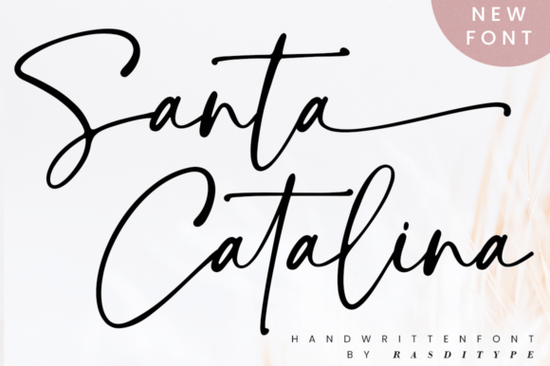
Are you searching for a digital asset that adds warmth without sacrificing readability? The Santa Catalina Font stands out among hundreds of options because it balances character with usability. Many designers struggle to find scripts that feel organic enough for personal touches yet clean enough for brand identity. This particular option bridges that gap effectively. Its structure allows for clear messaging while maintaining the charm of hand lettering.
If you are working on print-on-demand items or social media graphics, having access to a versatile toolkit is essential. This specific family includes variations that support different visual needs. Below, we will look at how this file fits into modern workflows, specifically regarding its encoding and potential applications.
What technical features distinguish this handwriting style?
One of the primary concerns for any designer is whether a font will behave correctly across different software environments. This package comes PUA encoded. This technical detail means you can access a wide array of glyphs, swashes, and alternate characters directly within your application interface. Without proper encoding, accessing stylistic alternates often requires complex workarounds or manual character mapping.
The distinct shape ensures that your text maintains integrity even when scaled up for signage. Unlike many thin script fonts that break down at smaller resolutions, this one retains its form. You do not need to worry about letters merging together when used for tight layouts. For instance, pairing this style with heavier weights can create excellent hierarchy in a layout. If you need more robust alternatives for headlines, checking out collections featuring black sample font script styles can provide the necessary contrast.
Furthermore, the swash elements offer opportunities for decoration. You can attach them to the beginning or end of words to create flourishes. This is particularly useful for headers on invitations or banners where you want to draw the eye immediately. However, remember that overusing decorative elements can clutter the message. A balanced approach usually yields the best results for professional communication.
Where should you apply this aesthetic for maximum impact?
Understanding the vibe of a typeface is just as important as knowing how to install it. The personality of this script leans towards something approachable yet polished. This makes it highly suitable for events like weddings, anniversaries, or birthdays. Couples often seek fonts that look elegant without appearing overly formal or stiff.
When planning seasonal content, you might find yourself needing different textures depending on the holiday. While this font works well for spring or summer vibes due to its fluid lines, it adapts nicely to winter themes when paired with appropriate colors. If you are specifically creating Christmas-themed content, exploring resources related to christmas lights font script might inspire different ways to decorate your own projects alongside this choice.
Romantic products are another strong candidate. Whether you are selling greeting cards or custom gifts, the right typography conveys emotion before a word is read. Sometimes, people prefer styles that lean heavily into sentimentality. In cases where you need a warmer, heart-focused look, comparing options in galleries such as i heart you font script can help you decide which aligns best with your customer base.
Seasonal projects versus year-round use
Many creators worry about buying a font that goes unused after a specific month. The versatility of this design minimizes that risk. It pairs well with block fonts for posters, making it usable throughout the calendar year. You can combine it with floral illustrations for bridal shops or teaming it with geometric shapes for modern minimalists.
However, lifestyle brands focusing on wellness or home decor often appreciate softer edges. For those targeting audiences interested in gentle aesthetics, looking at styles found in the baby boho font script category provides a similar level of delicacy for nursery designs or lifestyle blogging.
Ensuring compatibility with your creative tools
If you require a style that feels more adventurous or rugged for specific outdoor signage projects, comparing it against designs like outside font script can show you how different weights handle texture. While this font is great for indoor applications, understanding how scripts perform in high-contrast environments helps broaden your offering range.